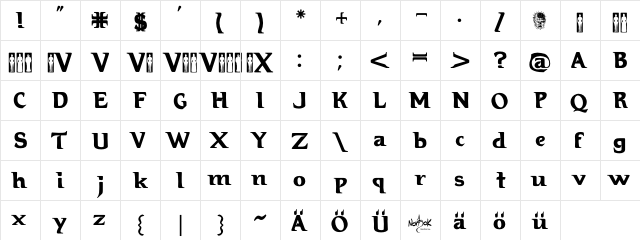
Hellraiser 3 Regular
| Designer | Thomas W.Otto |
Design Context for Hellraiser 3 Typeface
Hellraiser 3 offers clean, dependable letterforms without strong stylistic allegiance, making it a practical choice for designers who need flexibility.